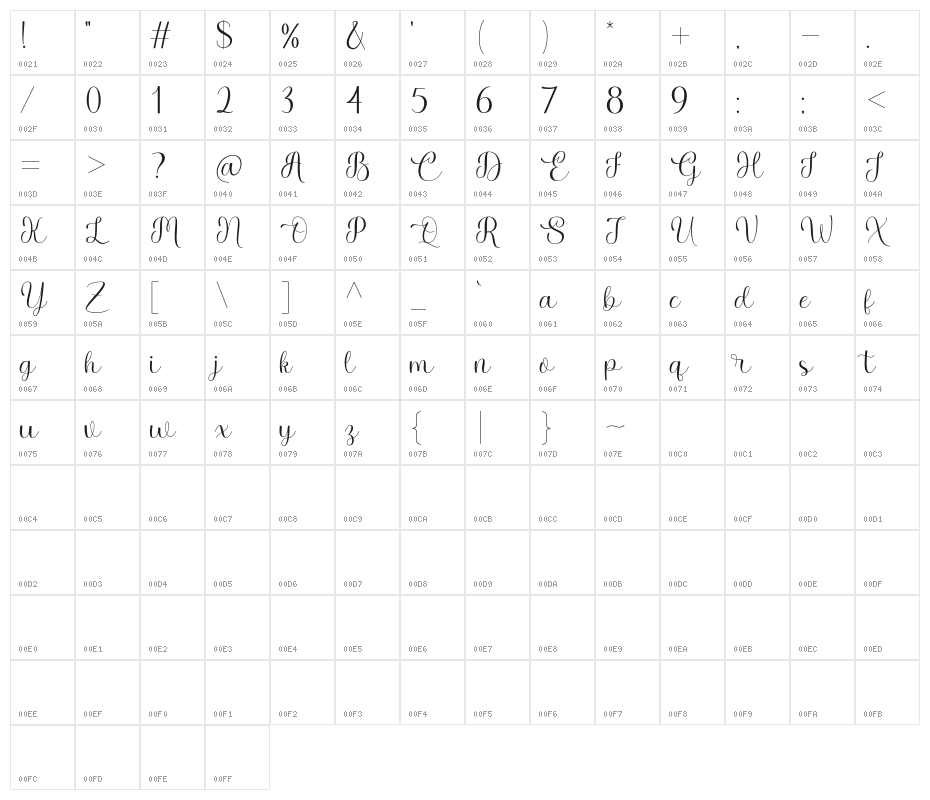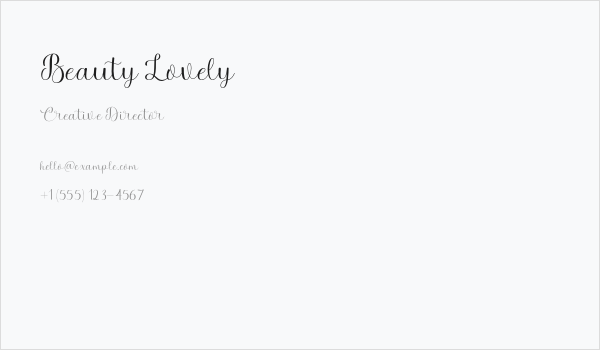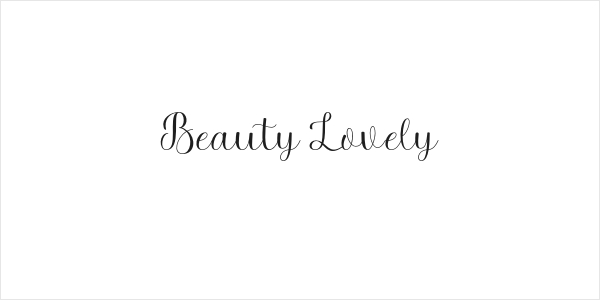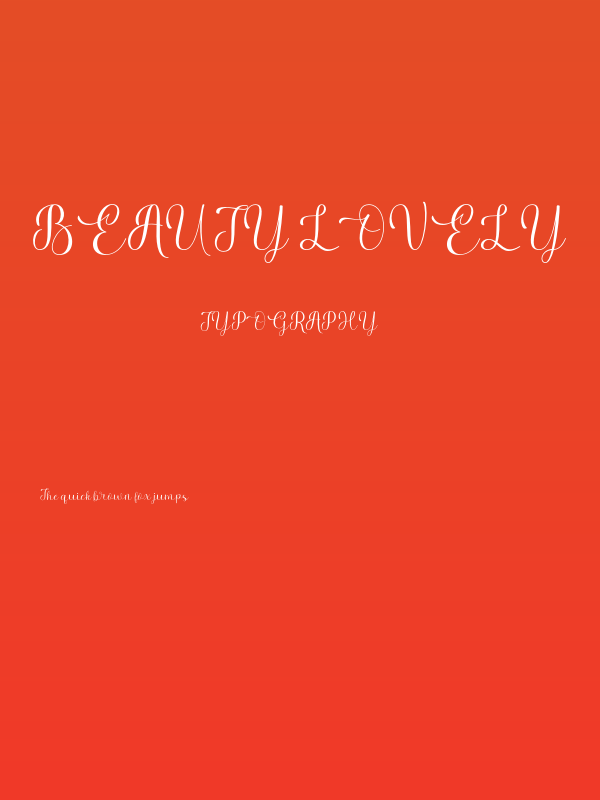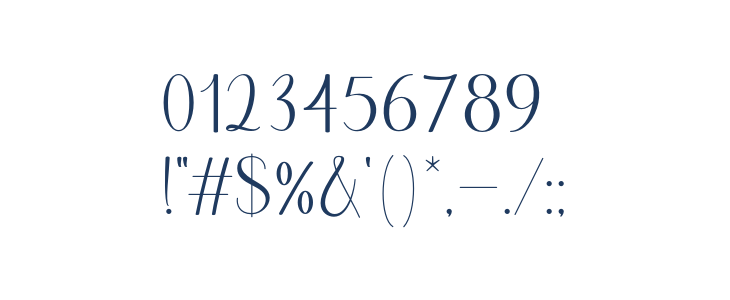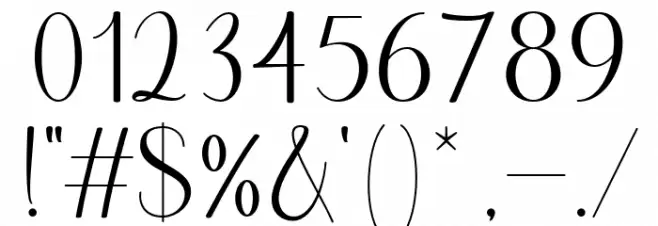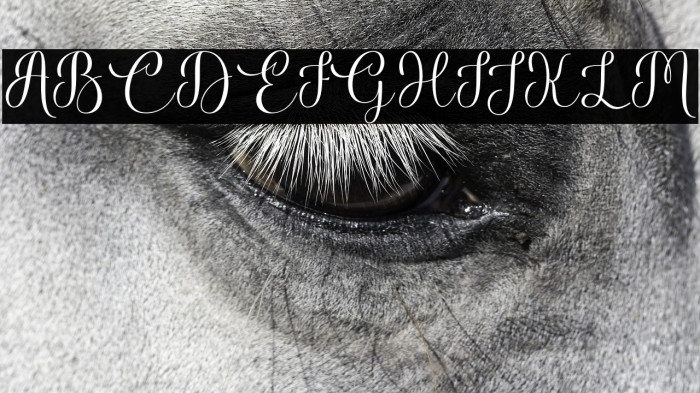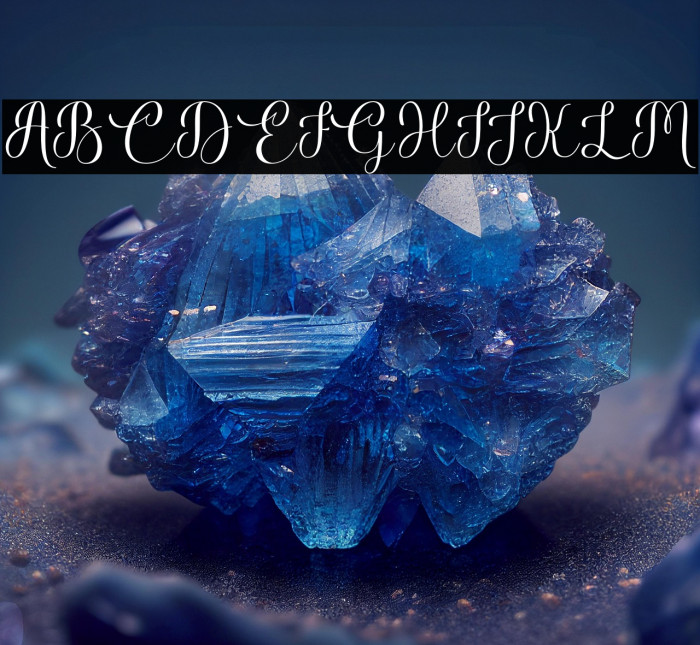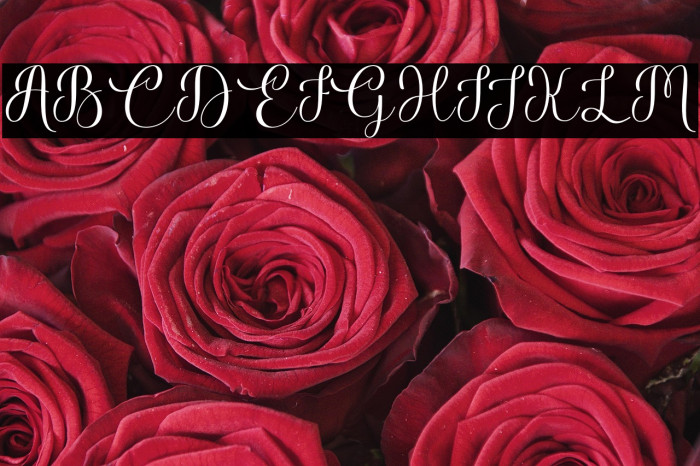
Beauty Lovely Font
Beauty Lovely Description
This elegant script font features a flowing, cursive style with graceful loops and swirls. The uppercase letters are ornate, with distinctive flourishes that add a touch of sophistication. The lowercase letters maintain a consistent, smooth flow, making them highly legible while retaining their decorative appeal. The numerals are stylish yet clear, complementing the overall aesthetic. Special characters are thoughtfully designed to match the font's elegant theme, ensuring a cohesive look across all text elements. This font exudes a sense of romance and charm, making it ideal for projects that require a touch of elegance and beauty.
| Overall Style | Elegant, Romantic |
| Use Case | Headlines, Invitations, Branding |
| Proposed Projects | Wedding invitations, greeting cards, branding for luxury products, elegant posters, and decorative quotes. |